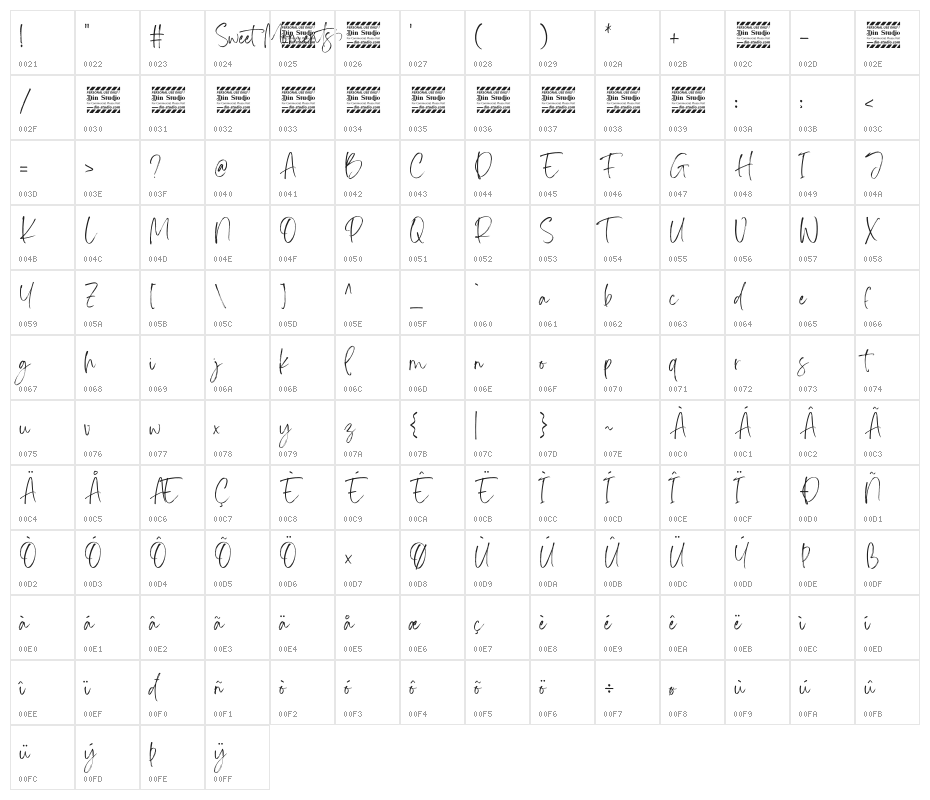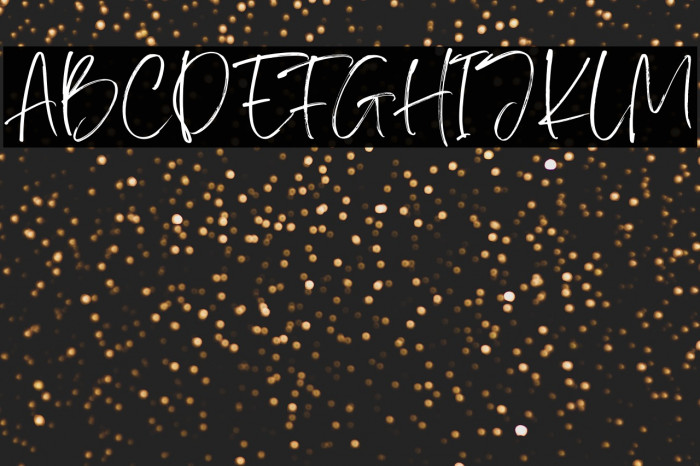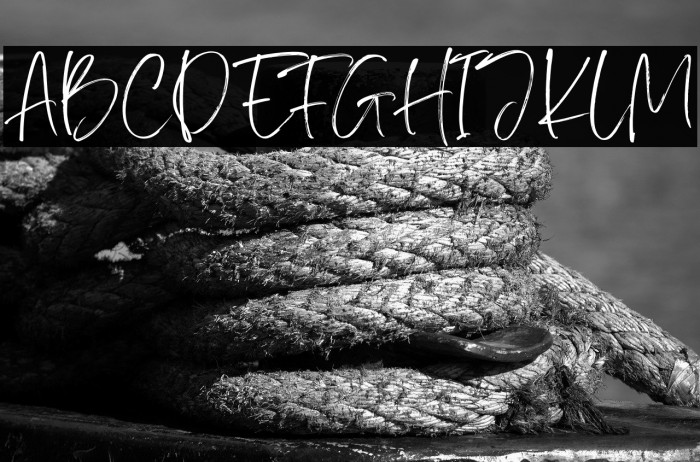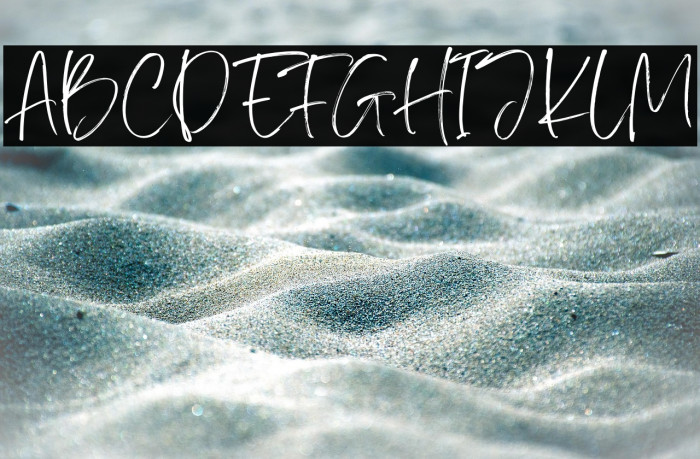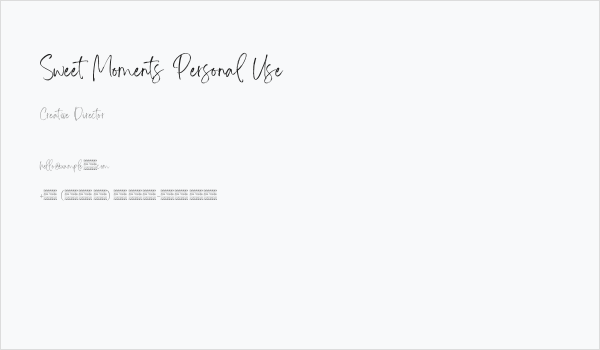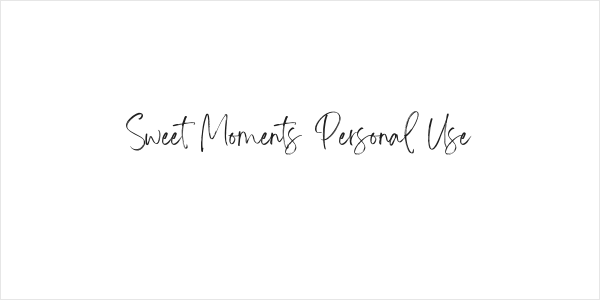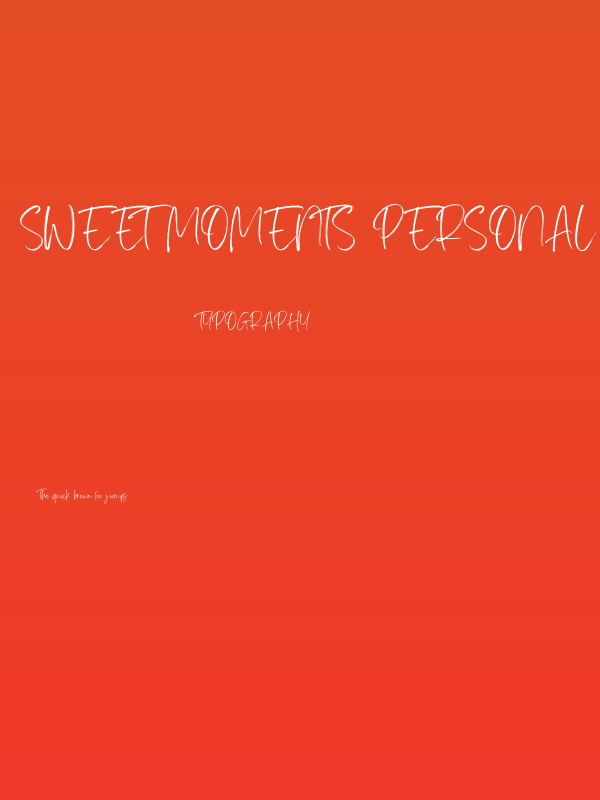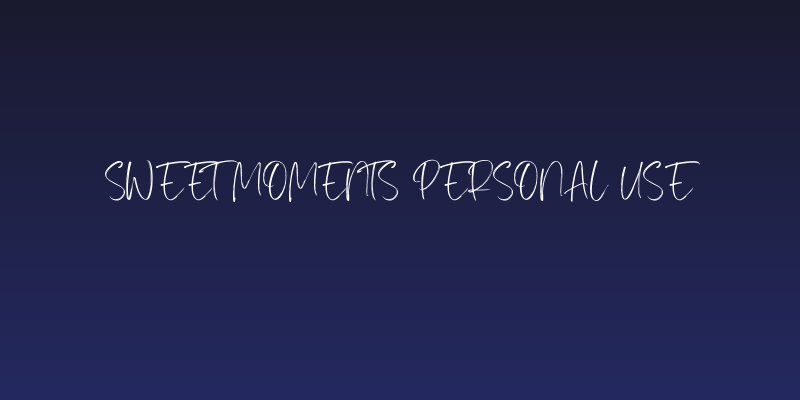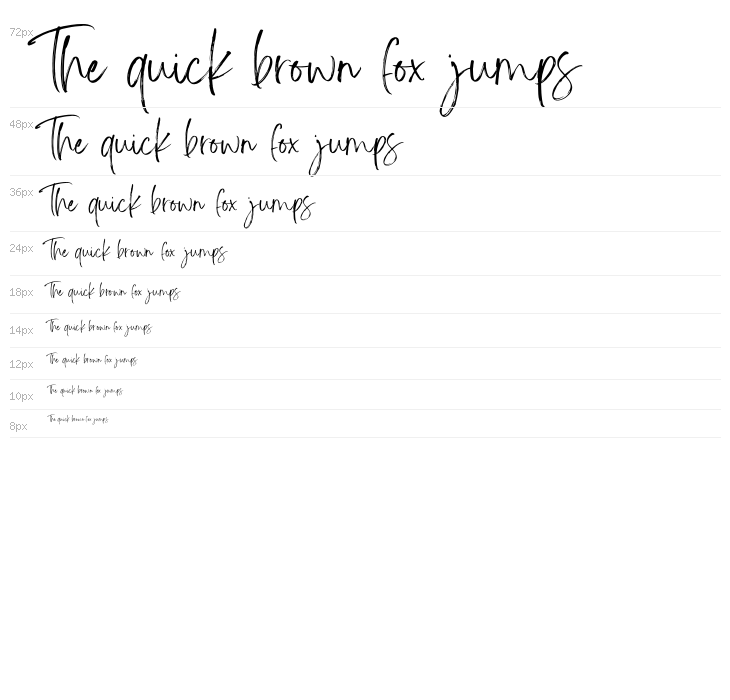
Sweet Moments Personal Use Font
Sweet Moments Personal Use Description
This font features a lively and expressive handwritten style, characterized by its fluid and dynamic strokes. The letters have a natural, organic flow with varying thickness, giving it a personal and artistic touch. The uppercase letters are bold and prominent, while the lowercase letters maintain a consistent style with a slightly more delicate appearance. The overall design is playful yet elegant, making it suitable for creative and informal projects. The special characters add a whimsical flair, enhancing the font's versatility.
| Proposed Projects | Ideal for wedding invitations, greeting cards, personal branding, and creative social media graphics. |